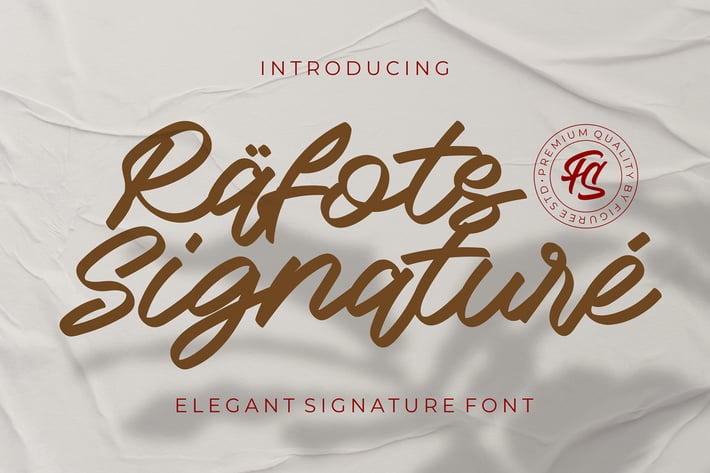
Rafots Signature - Elegant Font
Rafots is a signature decorative font with which you can achieve a handwritten-type lettering feeling. This signature style is perfect for your modern graphic design needs. This font has a really nice flow so you use it in a large text if you want to give them a touch of personality. It can be used on social media content, for branding or packaging.
Also, Rafots Signature is the ideal typeface for organic products branding and packaging. Additionally, you can use Broterside signature romantic vibes for wedding invitation designs. Especially if you are looking for a font for Instagram quote posts or any other social media content, this typeface is for you!
- Uppercase and Lowercase
- Numbers and Punctuation Marks
- PUA Encoded open
- Support Multilanguage